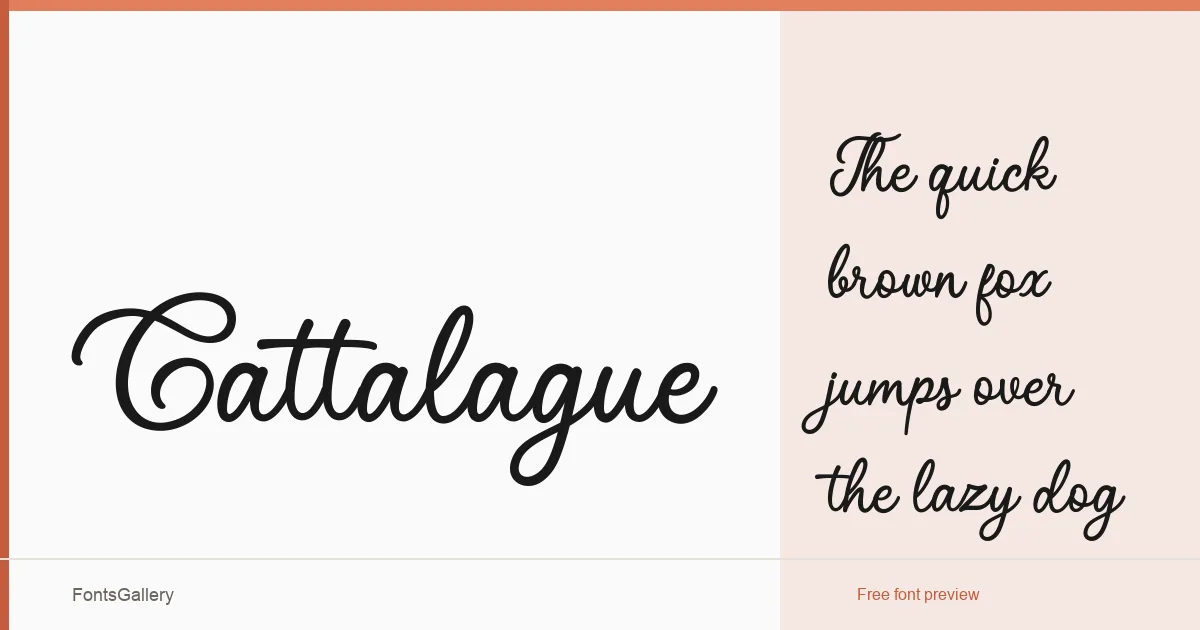
About Cattalague Font
Cattalague is a script typeface crafted by Bery Arisandi and Basnistudio, designed to evoke elegance, romance, and timeless classic charm. This graceful font brings a refined handcrafted quality that makes it instantly captivating for a wide range of sophisticated design projects. Its flowing script nature lends itself beautifully to occasions and brands that demand a touch of artful distinction.
Cattalague features the sweeping, expressive letterforms characteristic of an elegant script, with smooth curves and fluid strokes that convey a deeply romantic sensibility. The classic aesthetic of its characters gives each letter a poised, deliberate beauty that feels both luxurious and approachable. This balance of grace and readability makes Cattalague a standout choice among refined script typefaces.
Cattalague shines in logo design, wedding stationery, invitation cards, greeting cards, and branding projects where an elegant, romantic tone is essential. Its expressive script style pairs exceptionally well with the clean, minimalist strokes of Aresink or the timeless neutrality of Helvetica, creating a harmonious contrast between decorative and functional type. These combinations work especially well for luxury brand identities and bespoke event materials.